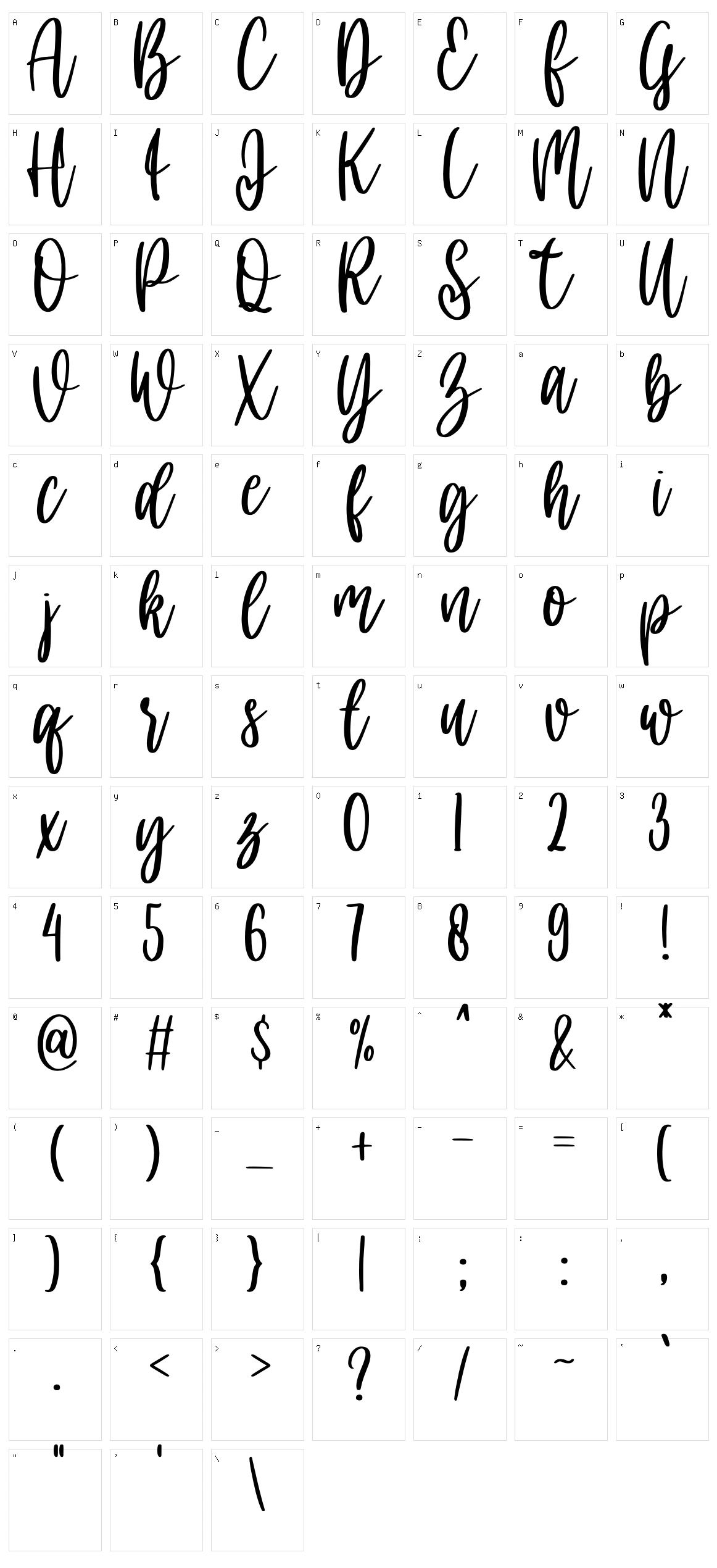
The free font Daddy Dear is carefully designed by NJ Studio, showcasing a thoughtful balance of creativity and usability and falls under the Script font style. When you download the ZIP file, it contains only 59.02 KB of font files, making it lightweight and quick to download. Please review the license details below to understand permitted usage and distribution rights. If license information is not available, we recommend using this font for personal projects only or contacting the author directly for commercial usage permissions.